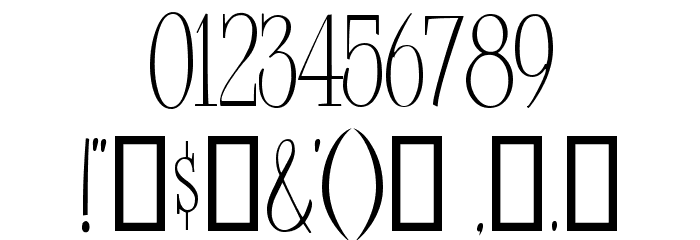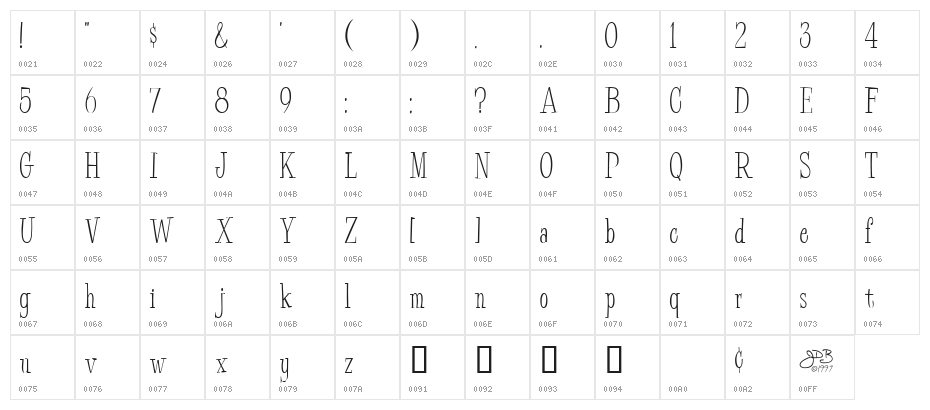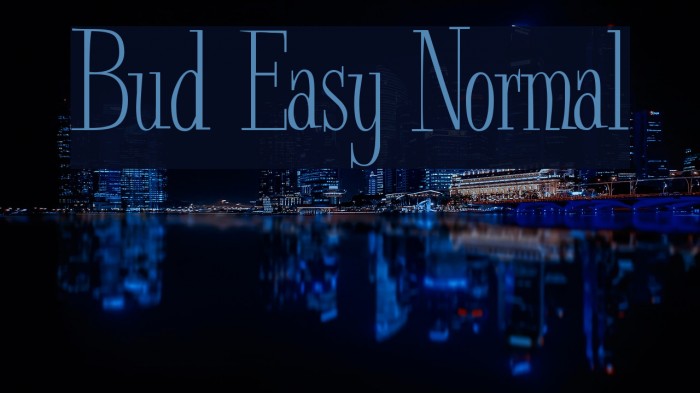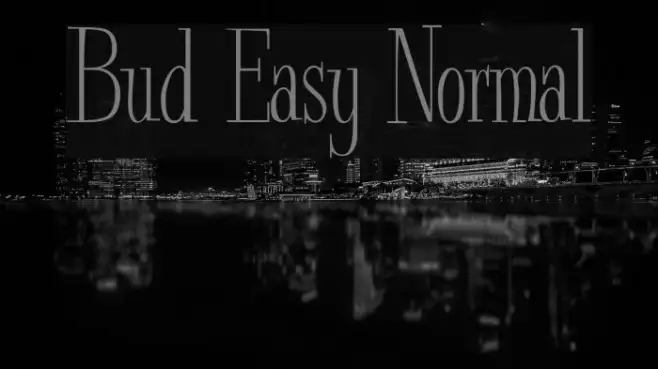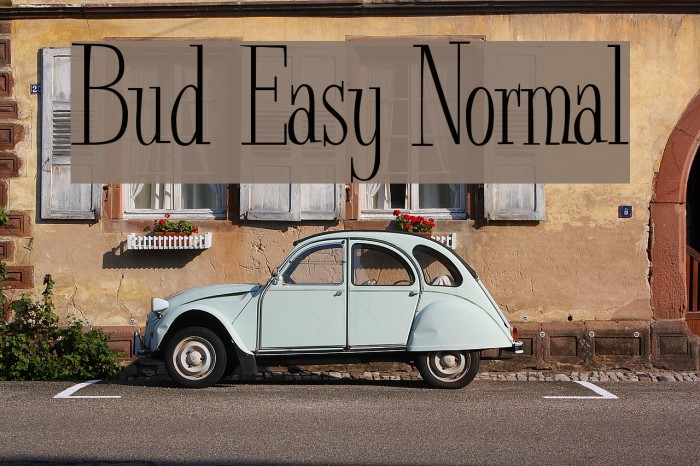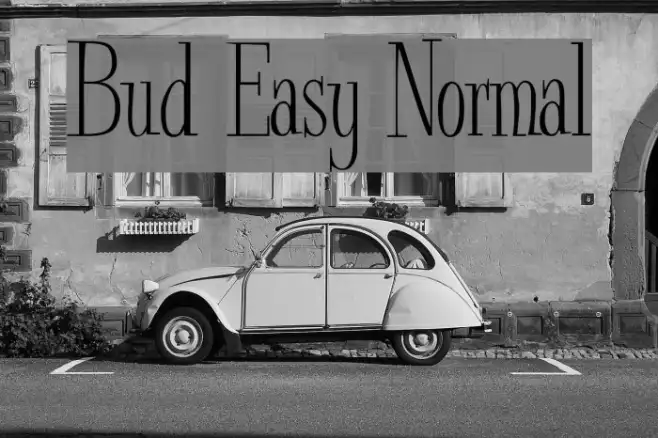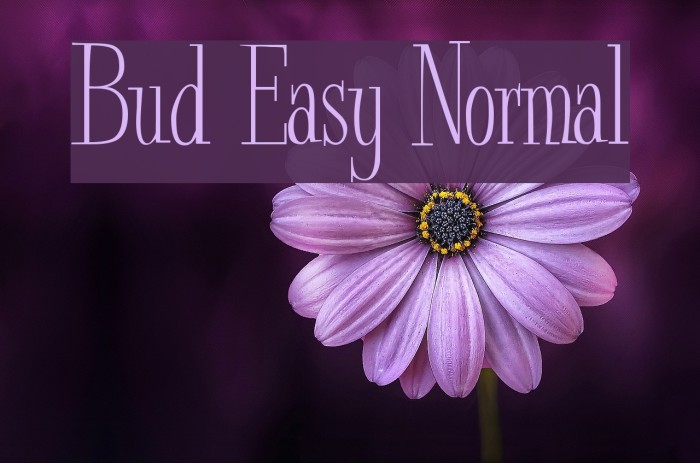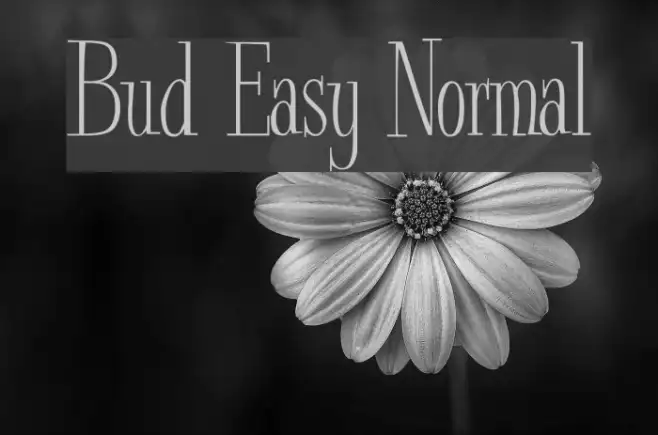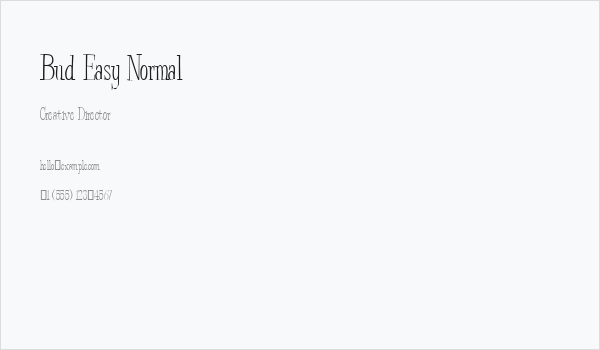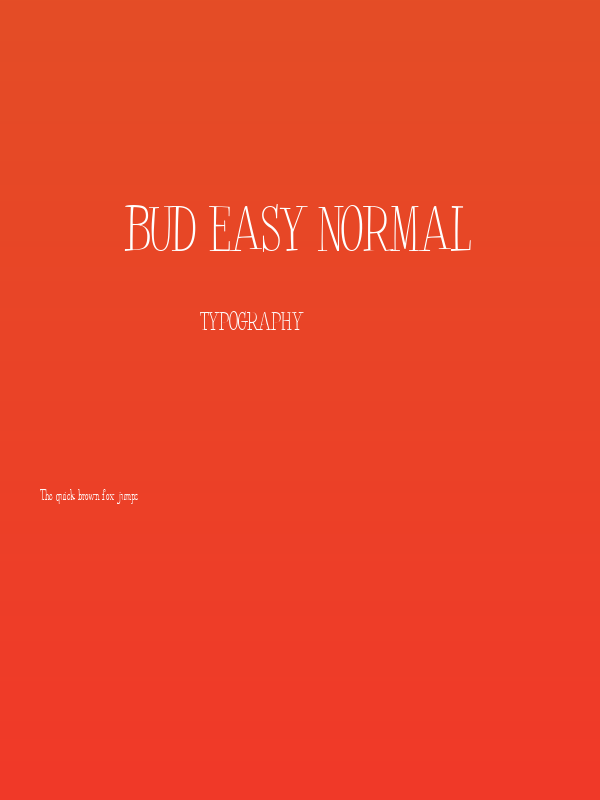
Bud Easy Normal Font
Bud Easy Normal Description
This font exhibits a classic serif style with a modern twist, characterized by its tall, elegant letterforms and thin, elongated serifs. The uppercase letters are particularly striking, with a refined and sophisticated appearance, while the lowercase letters maintain a consistent style that complements the overall design. The numerals are clear and easy to read, making them suitable for a variety of applications. Special characters are thoughtfully designed, maintaining the font's cohesive aesthetic. The font's high contrast between thick and thin strokes adds to its elegance and readability, making it an excellent choice for formal and professional settings.
| Proposed Projects | Ideal for use in editorial design, book covers, formal invitations, and branding projects that require a touch of elegance and sophistication. |